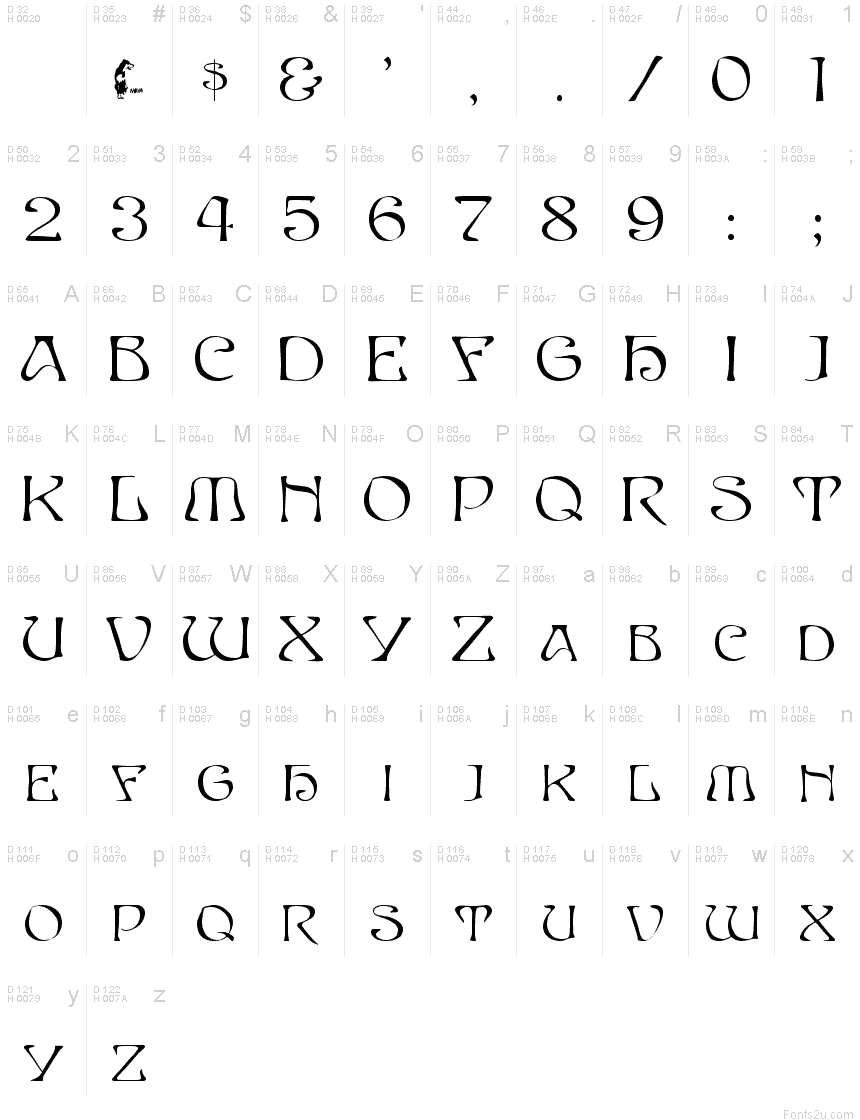
EddaCaps
EddaC aps font twists classic capital letters into soft, sculpted forms with flared tips and slow, fluid curves. The strokes swell and taper like ink on textured paper, creating a slightly mythic, storybook mood. Its even rhythm and roomy shapes keep titles readable at a glance.
This free font works well for fantasy book covers, folklore posters, boutique branding, event invitations, game logos, and atmospheric packaging or menus. Edda Caps is at its best in larger sizes where the curves can breathe, paired with a simple sans serif for body text. Use generous letterspacing to emphasize its airy, carved feel.